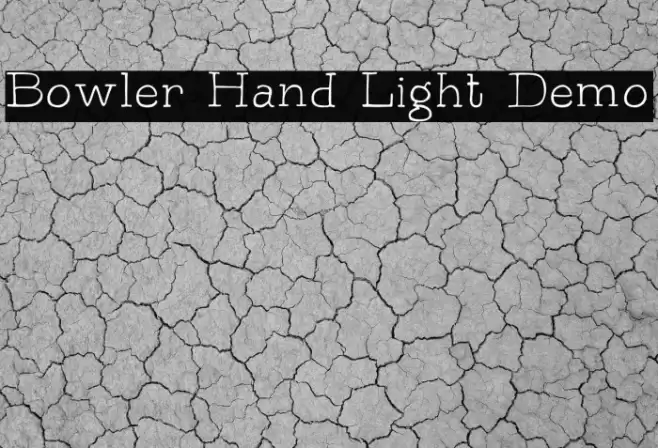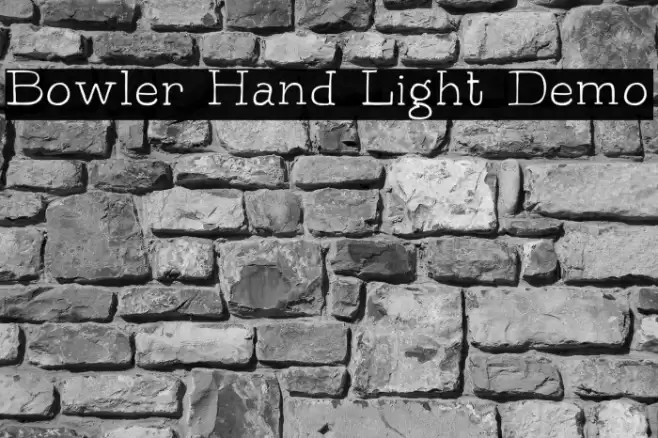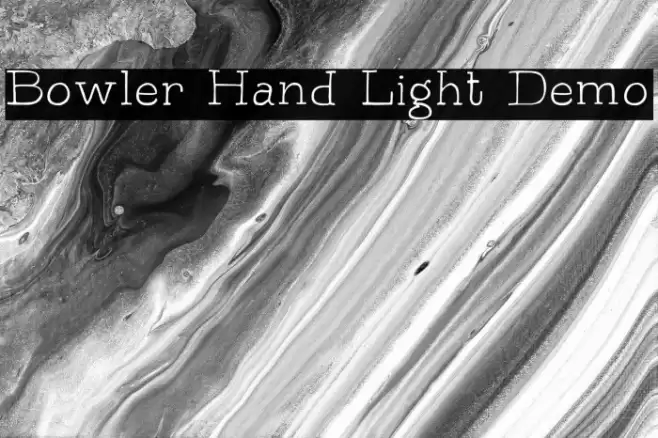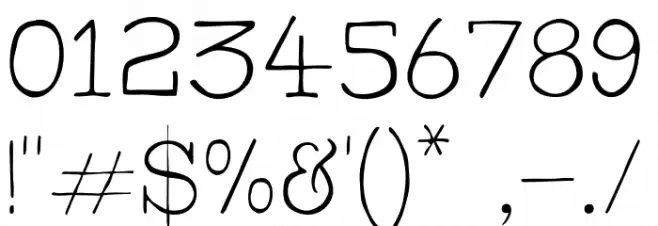
Bowler Hand Light Demo Font
Bowler Hand Light Demo Description
This font features a playful and casual handwritten style with a light touch. The characters are slightly irregular, giving it a charming and approachable feel. The uppercase letters are tall and narrow, while the lowercase letters maintain a consistent height, adding to its readability. The numerals are clear and distinct, matching the overall style of the alphabet. Special characters are uniquely crafted, maintaining the font's whimsical nature. This font is ideal for projects that require a personal and friendly touch, such as invitations, greeting cards, or casual branding.
A playful, handwritten font with a light and casual style from Regular fonts.
- Proposed Projects: Ideal for invitations, greeting cards, casual branding, and personal projects.
- Weight: Light
- Overall Style: Casual
- Use Case: Invitations, Greeting cards, Casual branding